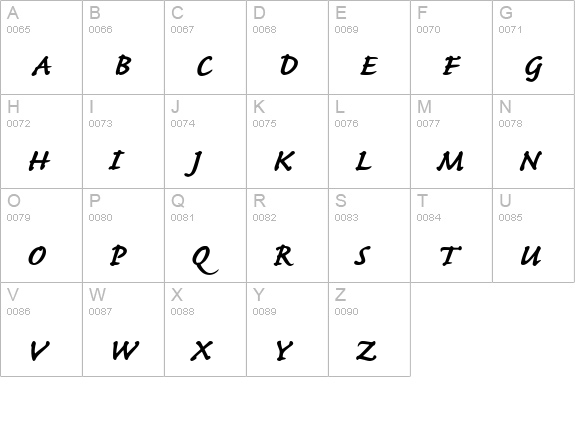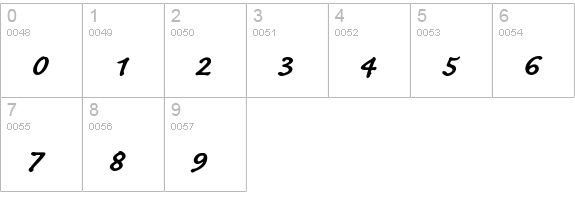
Caflisch Script Bold Font Details
Caflisch Script Bold is a strong, high-contrast variant in the Caflisch typeface family \xE2\x80\x94 well suited to headlines, attention-grabbing titles, and strong calls-to-action.
Caflisch Script Bold is a captivating and elegant font that exudes a sense of timeless beauty. With its bold and flowing letterforms, this typeface adds a touch of sophistication to any design project. Whether used for invitations, logos, or headlines, Caflisch Script Bold commands attention and adds a touch of class. What makes Caflisch Script Bold even more enticing is that it is available for free download at FontsMarket.com. This means that you can access this stunning font without any cost, allowing you to enhance your design work without breaking the bank. The intricate and intricate details of Caflisch Script Bold are truly impressive. Each letter is meticulously crafted, with delicate curves and graceful strokes that create a sense of movement and fluidity. The thick, bold lines add a sense of strength and confidence to the overall design, making Caflisch Script Bold a perfect choice for projects that require both elegance and impact. The versatility of Caflisch Script Bold is another reason why it is a must-have font. Whether you are looking to create a vintage-inspired design or a modern and sleek aesthetic, this font can adapt to any style seamlessly. Its timeless appeal ensures that it will remain relevant and eye-catching for years to come. So why wait? Enhance your design projects with the beauty and elegance of Caflisch Script Bold. Download it for free at FontsMarket.com and unlock endless possibilities for your creative endeavors. With its bold personality and effortless charm, Caflisch Script Bold is sure to leave a lasting impression on your audience.